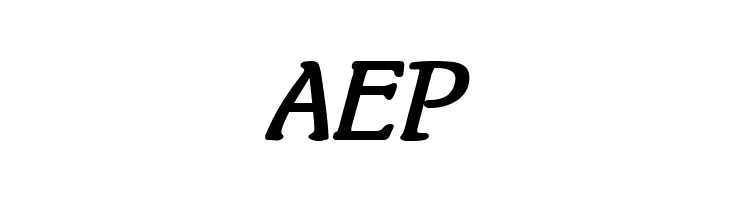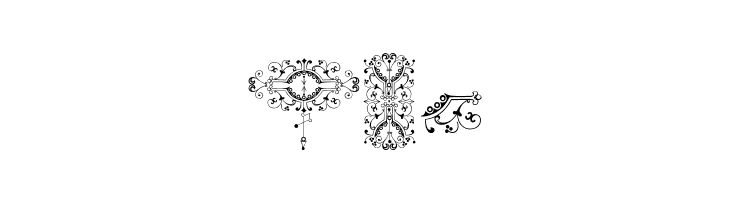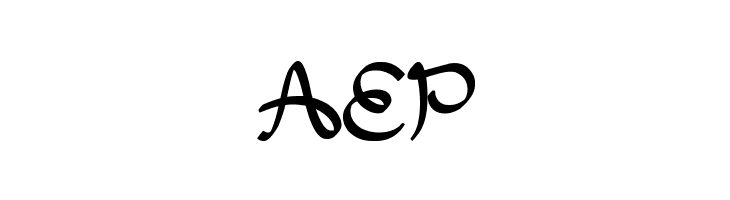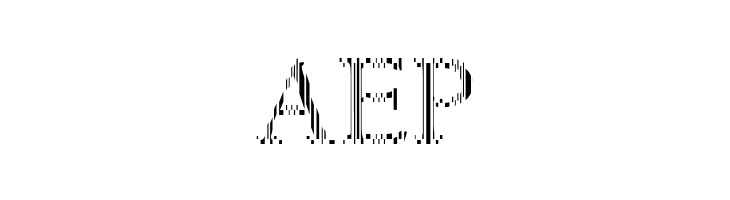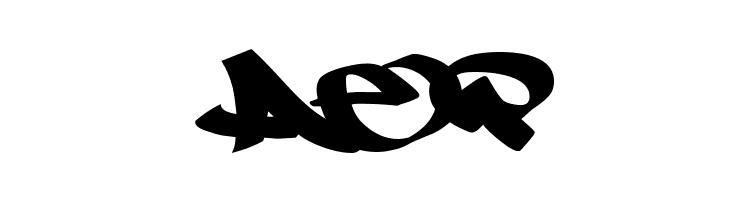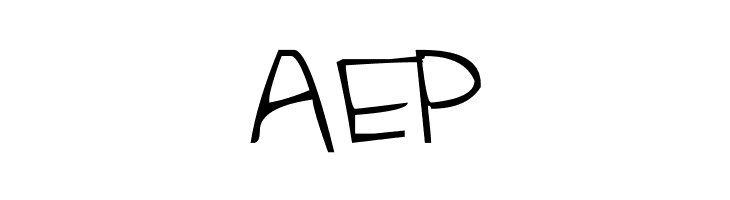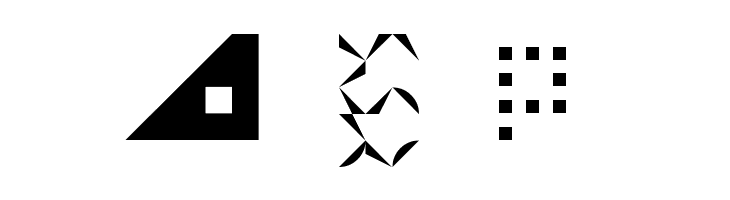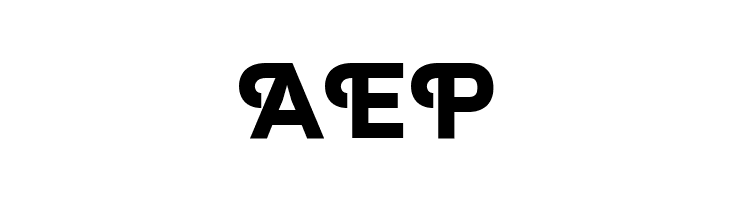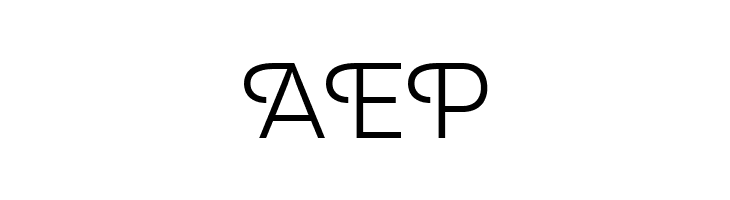
A horror-themed font with a dripping, blood-like effect and sharp serifs.
A decorative font with cartoon characters holding text banners, perfect for playful headlines.
A graceful cursive font with flowing lines and elegant curves.
A flowing, cursive font with elegant and readable characters.
A modern, geometric font with rounded edges and uniform stroke width.
A bold, italicized font with a modern, sleek, and slightly condensed style.
A geometric, futuristic font with bold, circular shapes and unique cut-out patterns.
A whimsical, hand-drawn font with playful, irregular forms and dynamic strokes.
A whimsical and playful font with exaggerated curves and unique serifs.
A whimsical and playful font with exaggerated curves and dynamic strokes.
A bold, decorative font with a vintage flair and intricate details.
A bold, decorative font with a vintage circus and wild west flair.
Ornate heraldic shields with detailed line illustrations as characters.
A textured, artistic font with intricate line and dot patterns.
A bold, angular font with a futuristic and edgy design.
A playful and bold font with dynamic, flowing strokes and whimsical curves.
A bold, flowing script font with playful curves and decorative swirls.
A tall, narrow font with angular serifs and a modern-vintage aesthetic.
A bold serif font with a classic yet modern style, featuring strong vertical lines and subtle curves.
A classic serif font with bold strokes and medium contrast, ideal for traditional and authoritative designs.
A modern serif font with clean lines and balanced proportions.
A vintage typewriter-style font with a rough, textured appearance.
A bold, gothic blackletter font with intricate detailing and a medieval flair.
A bold, decorative blackletter font with intricate detailing and a Gothic style.
A bold, blackletter font with sharp, angular lines and a medieval aesthetic.
A bold, gothic-inspired font with sharp, angular edges.
A bold, Gothic-inspired font with sharp edges and dramatic styling.